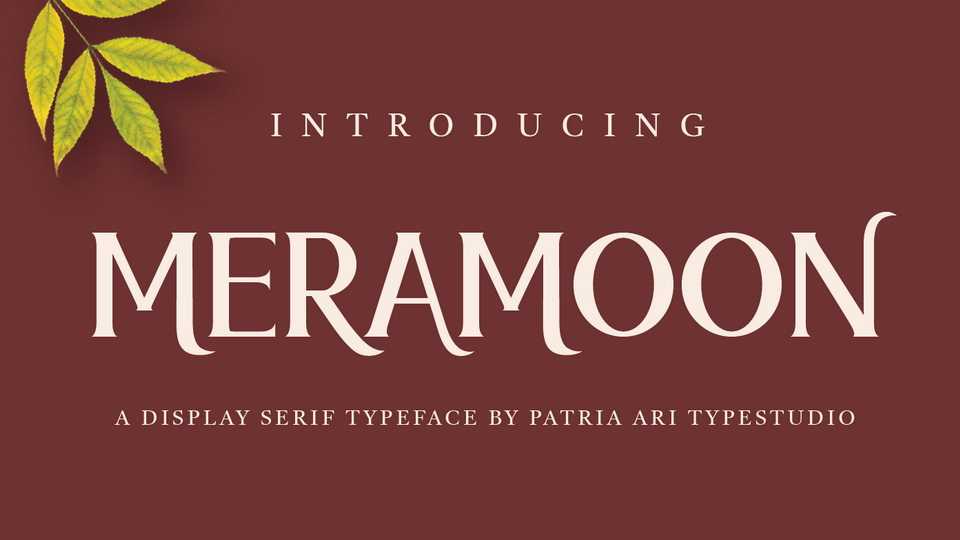
Download Meramoon font, an elegant vintage serif typeface with aesthetics alternative glyphs. Meramoon is perfect for branding projects, logo, social media posts, advertisements, label, photography, watermark, invitation, stationery and any projects that you work on.